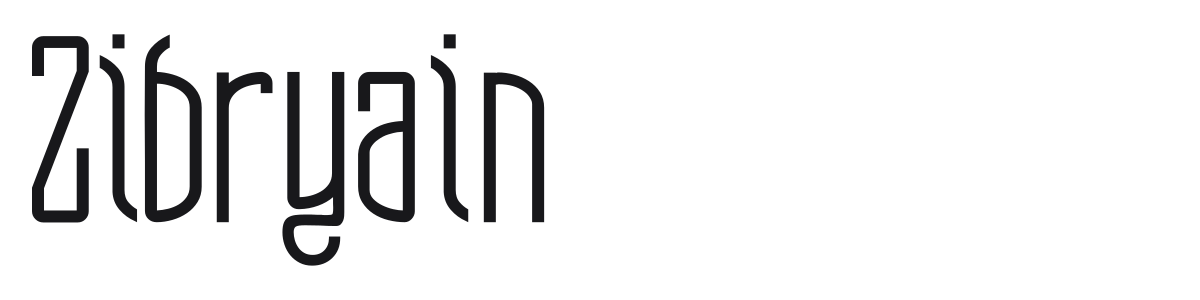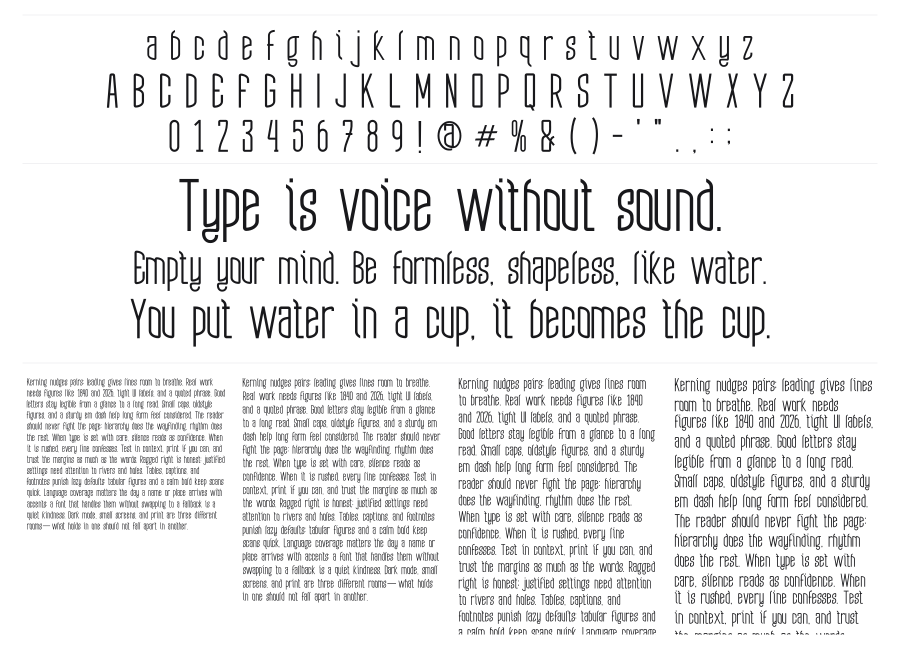
Zibryain
by Suamzu Art
Zibryain is a tall condensed display font with a striking signature detail: angled interior notches carved into the arches of each character. The effect sits somewhere between Art Nouveau ornamental design and contemporary geometric construction, making it feel both historical and fresh. Strong for editorial headlines, logotypes, and any project where a single line of text needs to own the page.